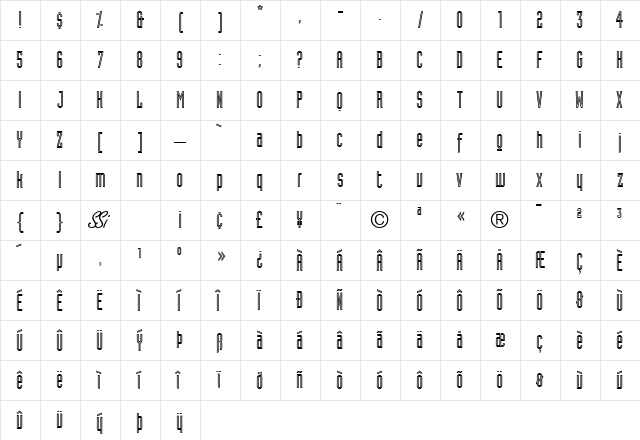
Assembly SSi Alternate Font Preview
Assembly SSi Alternate
Design Context for Assembly SSi Typeface
Assembly SSi offers clean, dependable letterforms without strong stylistic allegiance, making it a practical choice for designers who need flexibility.